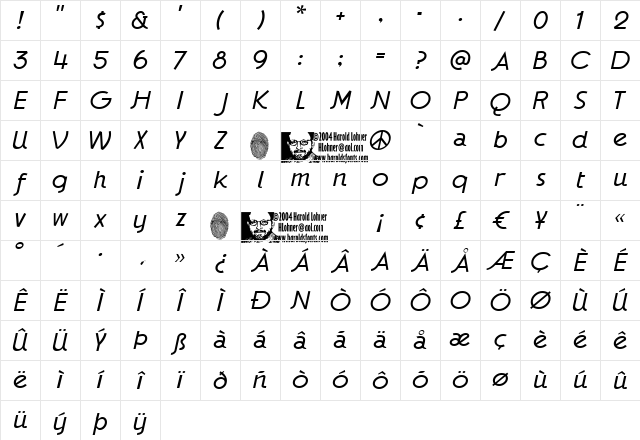
GaumontLight Italic Regular
Copyright: Gaumont computer fonts v1.0 © 2004 Harold Lohner "  " www.haroldsfonts.com Inspired by the hand lettered titles of the film "The 39 Steps
Design Context for GaumontLight Italic
GaumontLight Italic is a composed and adaptable typeface that performs quietly and consistently across a wide range of design contexts. The slanted form adds forward momentum and visual energy. Its slender proportions lend an understated elegance to any composition.